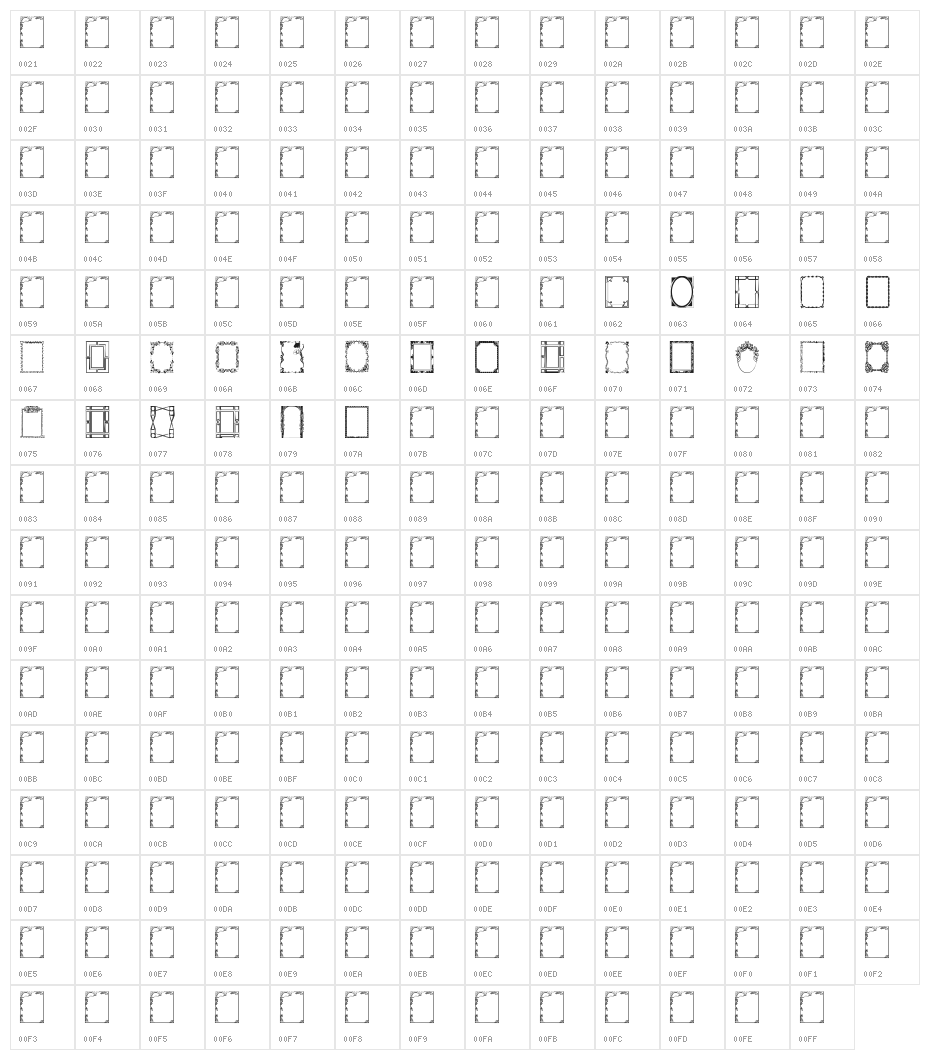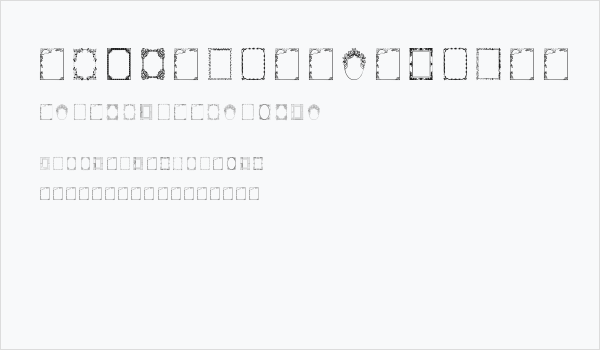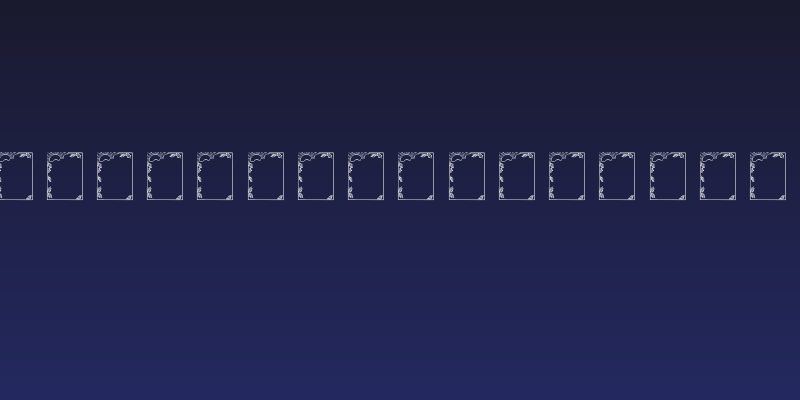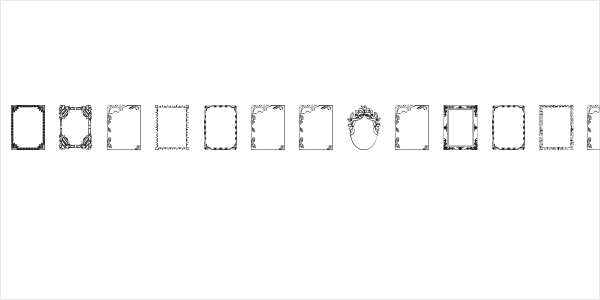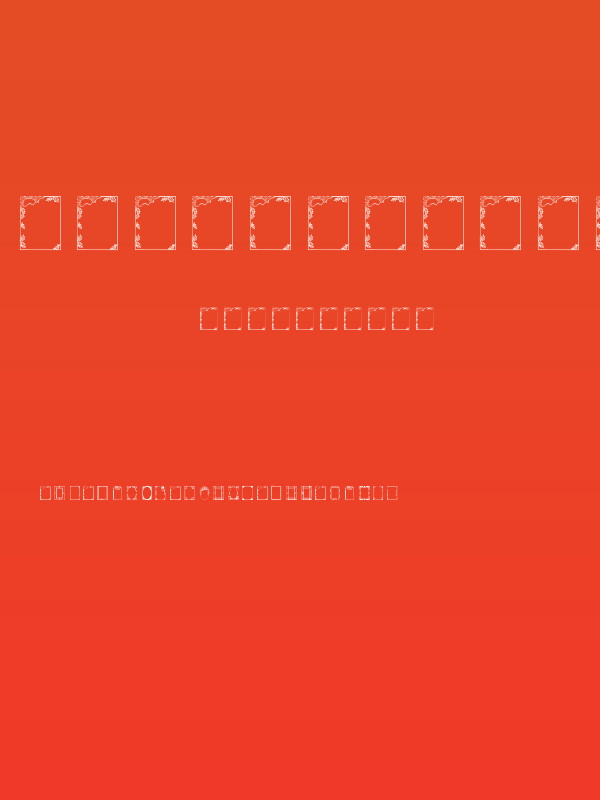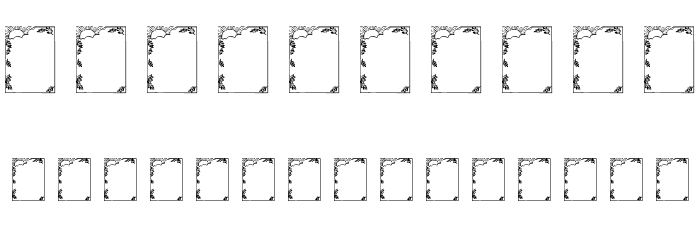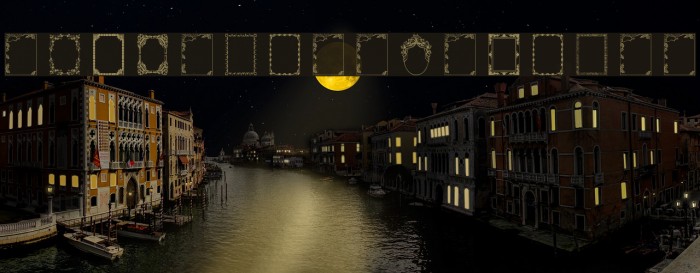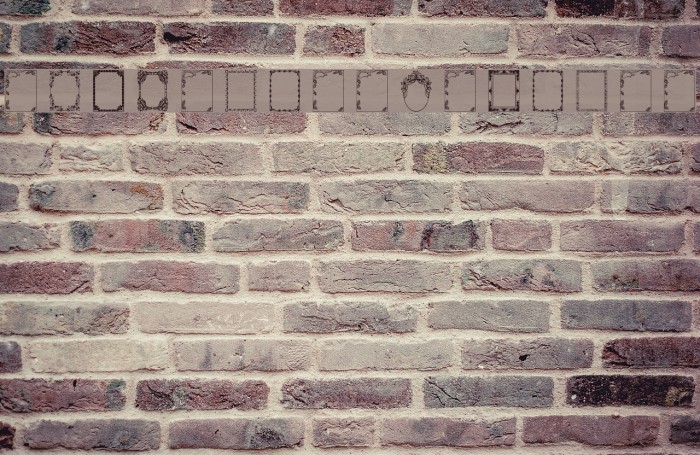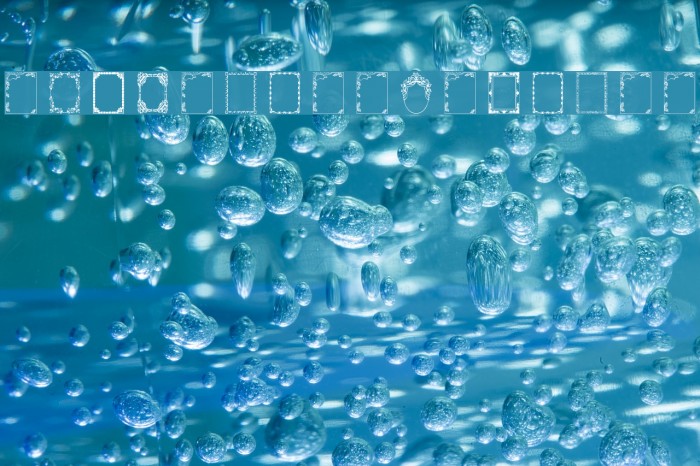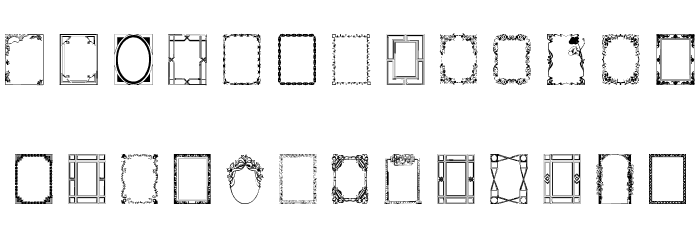
Vintage Frames 5 Font
Vintage Frames 5 Description
A decorative collection of ornate, vintage-inspired frames with intricate borders and flourishes, each frame featuring unique embellishments and classical motifs. The designs are primarily square with some variations, including oval and geometric elements, evoking an antique or art nouveau aesthetic.
| Overall Style | Vintage, Decorative |
| Use Case | Decorative elements, Borders, Frames for images or text. |
| Proposed Projects | Wedding invitations, certificates, greeting cards, scrapbooking, decorative labels, vintage-themed posters. |